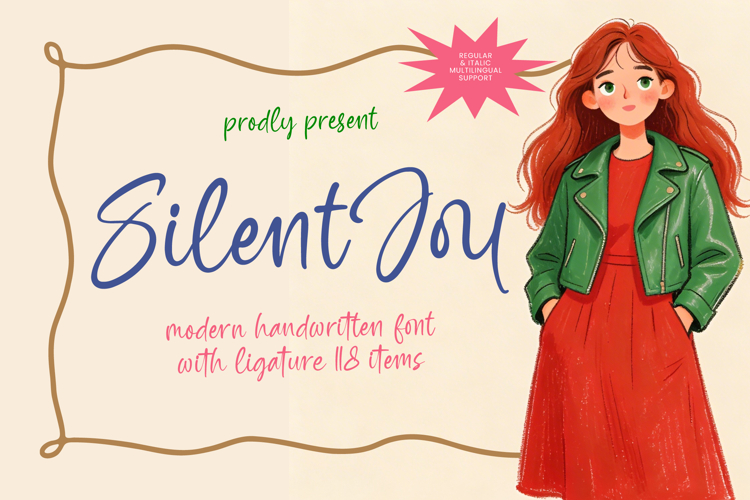
Silent Joy - Modern Handwritten Font
Inject instant warmth and genuine personality into your designs with Silent Joy - Modern Handwritten Font. This expressive script font is meticulously crafted to capture the authentic energy of natural handwriting while maintaining a polished, modern aesthetic suitable for professional use. Its elegant flow, varying stroke weights, and inherent charisma make it an ideal choice for brands aiming to communicate approachability, creativity, and a touch of effortless style, setting it apart as a truly unique typeface.